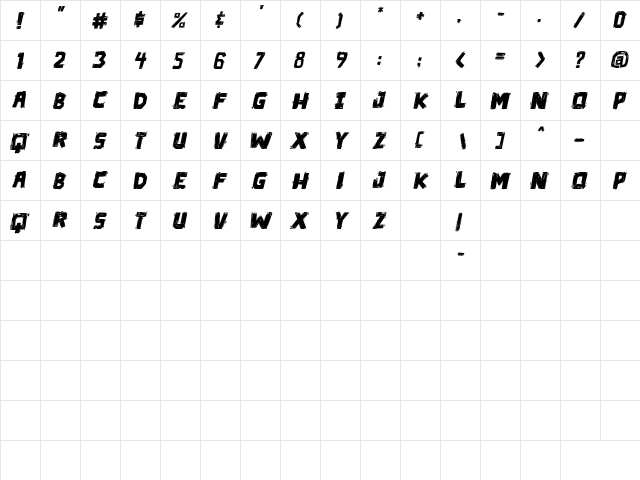
Die in a fire PG Italic Font Preview
Die in a fire PG Italic
Design Context for Die in a fire PG Typeface
Die in a fire PG is a composed and adaptable typeface that performs quietly and consistently across a wide range of design contexts. The slanted form adds forward momentum and visual energy.
Pro Tip: Use Die in a fire PG for emphasis, pull quotes, and subheadings where its slanted energy can add rhythm to the layout.